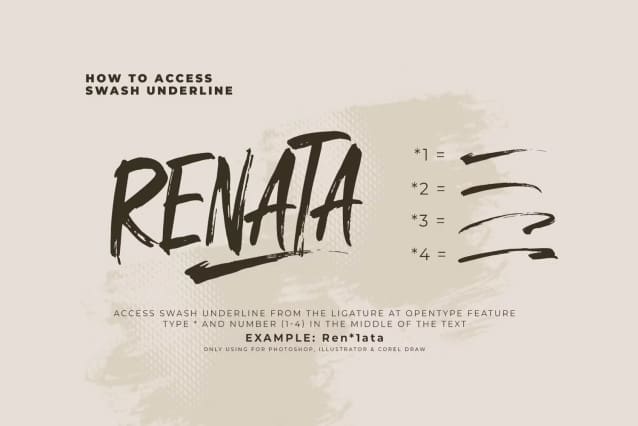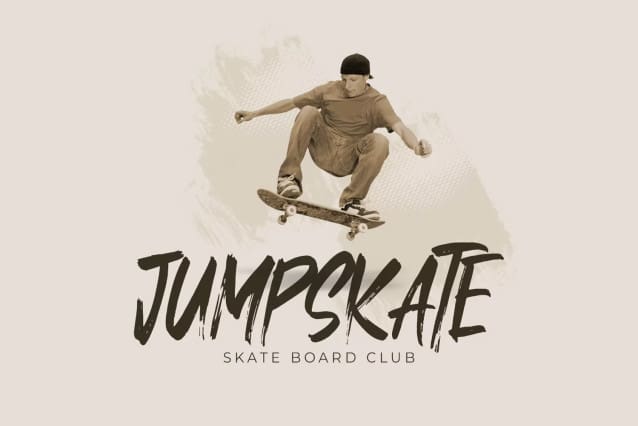
Jackbrush Typeface
Jackbrush Typeface is a modern brush font. Jackbrush font suitable for logo, branding, greeting card, poster and any design that you create…!